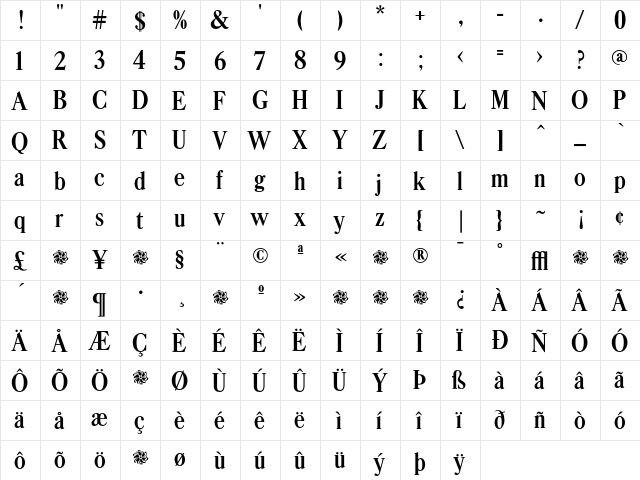
CaslonFB BoldCondensed
Design Context for CaslonFB Typeface
CaslonFB offers clean, dependable letterforms without strong stylistic allegiance, making it a practical choice for designers who need flexibility. Its bold stroke weight gives it real presence on the page. Its narrow stance lets it pack a punch even in space-constrained designs.
Pro Tip: Pair CaslonFB with a font of contrasting weight or personality to build a more expressive typographic hierarchy.